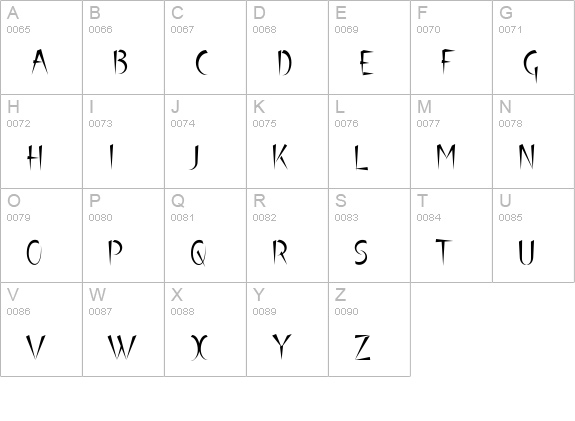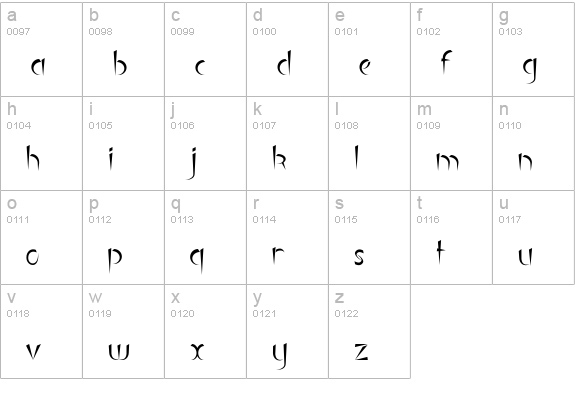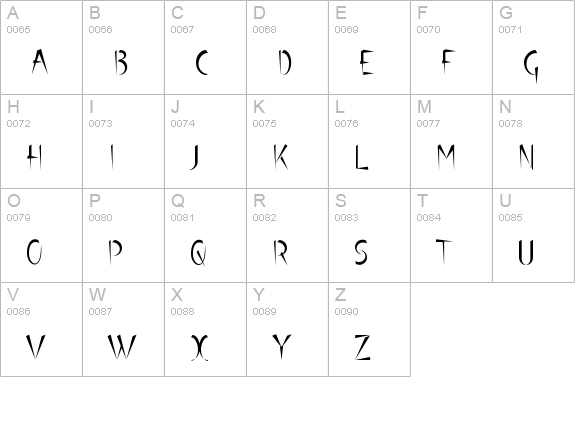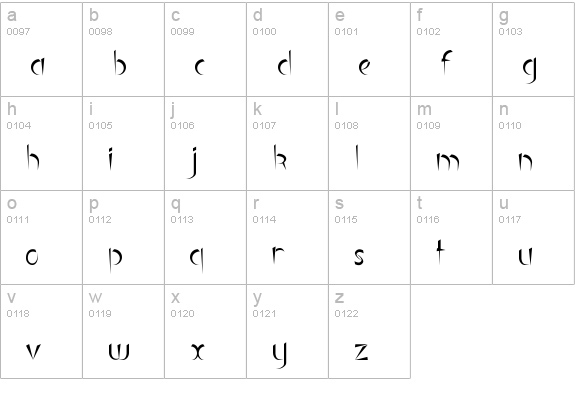
Luteous Font Details
Luteous font is a modern and sophisticated typeface that exudes elegance and charm. With its sleek and stylish design, Luteous is perfect for a wide range of projects, from branding to editorial design. The font features clean lines and a unique flair that will make your text stand out. What's even better is that Luteous font is available for free download at FontsMarket.com. Now you can add a touch of sophistication to your projects without breaking the bank. Don't miss out on the opportunity to enhance your designs with this stunning typeface. Download Luteous font today and elevate your creations to the next level.